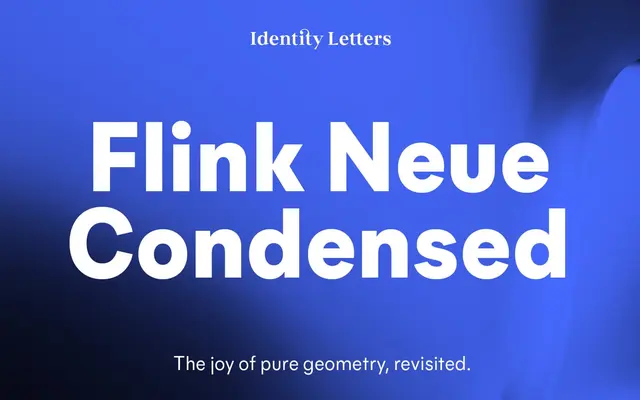
Flink Neue Condensed
A condensed geometric sans in nine weights across three subfamilies, drawing on early 20th-century geometric traditions including a dedicated Bauhaus variant.
Flink Neue Condensed is Identity Letters' take on the geometric sans genre, citing influence from both the early giants of the 1920s and later derivatives. The family spans 54 fonts across three subfamilies: standard, Text, and Bauhaus, each running from Thin to Black with matching italics. Glyph coverage is broad, with small caps, oldstyle figures, discretionary ligatures, and a suite of encircled and squared numeral ornaments.
Explicitly positioned as a geometric sans-serif in the tradition of 1920s geometric typefaces; clean, structured letterforms with Bauhaus-influenced alternates confirm the classification.